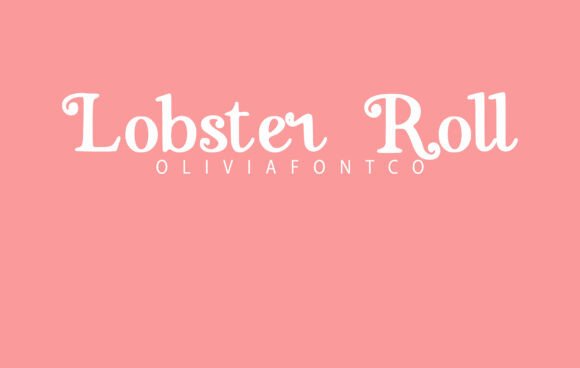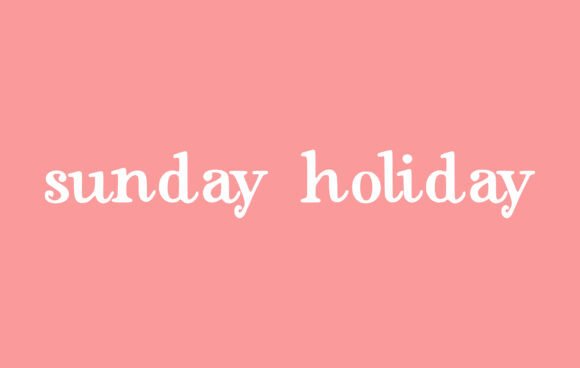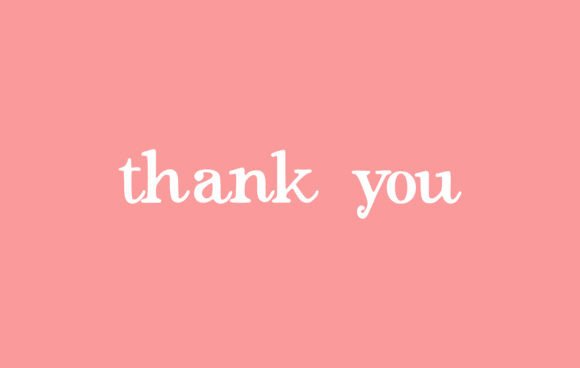
Lobster Roll Font
About the Lobster Roll Font
The Lobster Roll Font offers a perfect balance of form and function for your design needs. Lobster Roll font is an authentic handwritten font with a romantic touch. Expertly designed to be a true favorite, this font has the potential to take your creative ideas to the highest level
Lobster Roll’s romantic, handwritten style excels in headlines, short text blocks on invitations or branding materials, and social media posts where its charming personality shines. However, its less-than-optimal legibility makes it unsuitable for body text or lengthy paragraphs, and its informal feel might clash with serious corporate applications or UI elements.
Pairing Lobster Roll with a clean sans-serif like Montserrat for body text provides a strong contrast and balanced readability. For a more playful feel, consider pairing it with a script font such as Great Vibes, but use it sparingly to avoid overwhelming the design. A geometric sans-serif like Futura would add a modern edge, counterbalancing the font’s hand-drawn warmth.
The overall personality is best described as charming and slightly whimsical, making it ideal for brands projecting warmth, creativity, or a touch of vintage flair. Avoid using it where professionalism and strict formality are paramount.
Lobster Roll Font Usage Examples
Lobster Roll Font Example